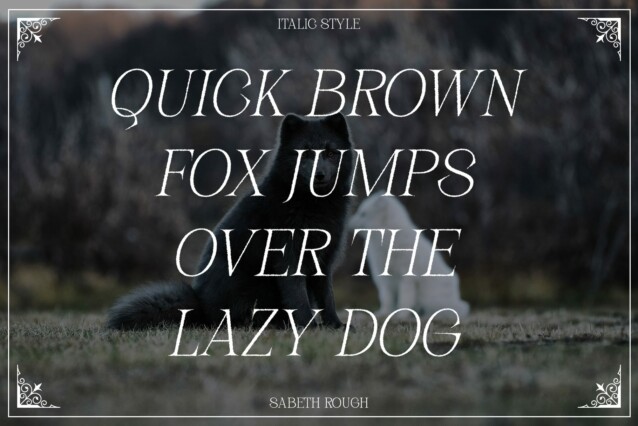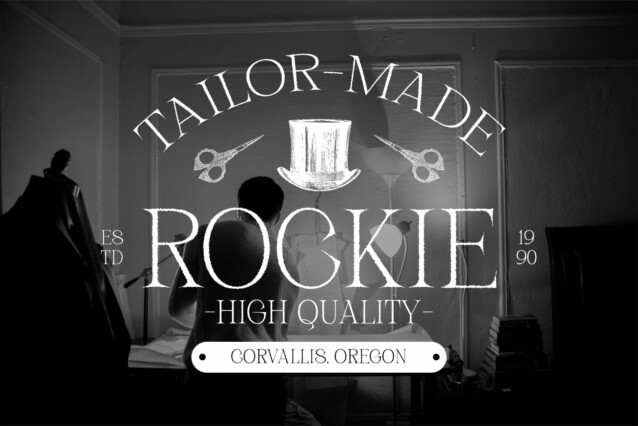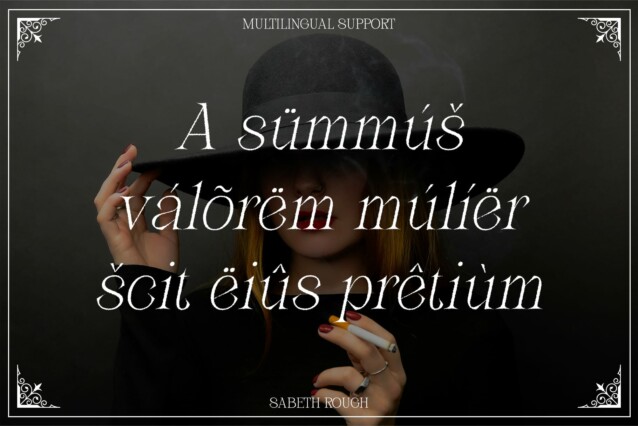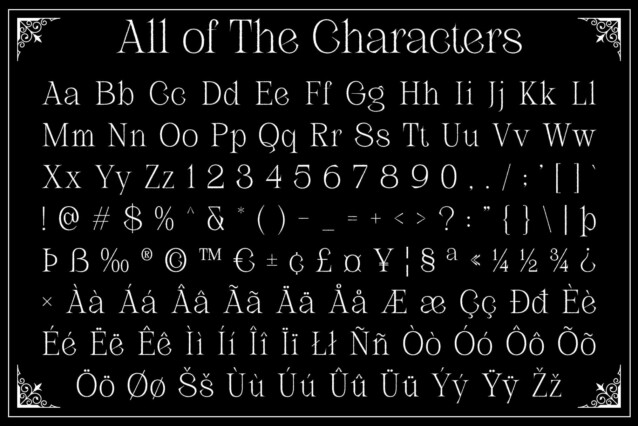
Sabeth Rough Font
Sabeth Rough Font is a modern serif font that seamlessly blends sleek, minimalist design with a rough, textured effect. Its clean lines and thin shapes create a sophisticated, orderly appearance, while the rough texture introduces a unique, artistic touch. This combination results in a font that is both refined and characterful, offering a striking balance between modern elegance and bold visual impact.